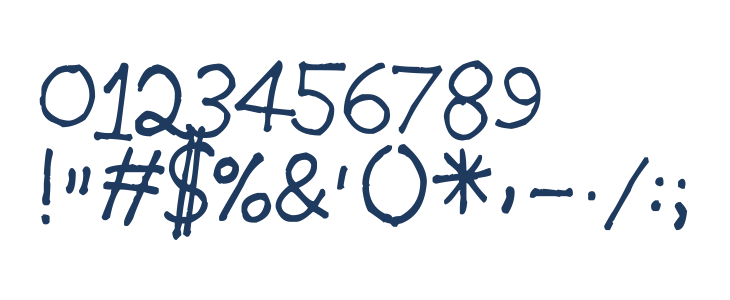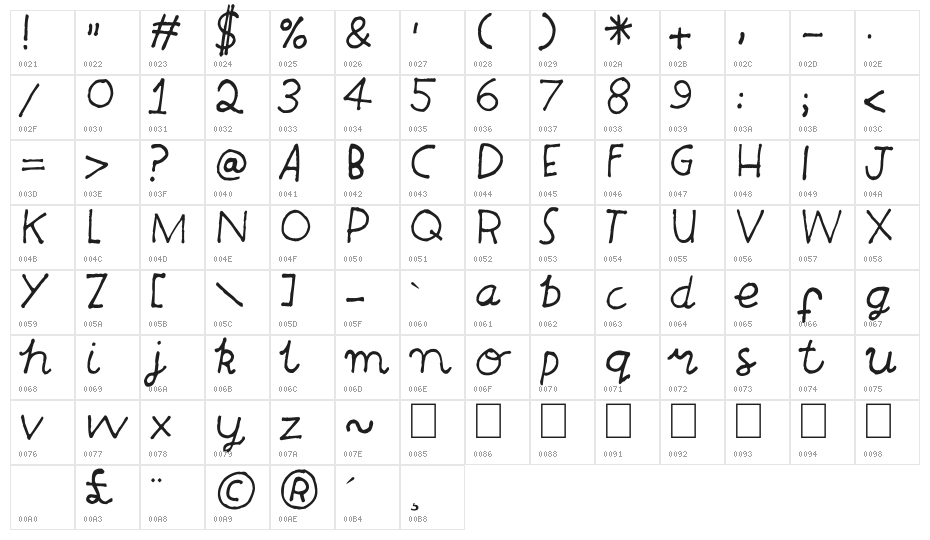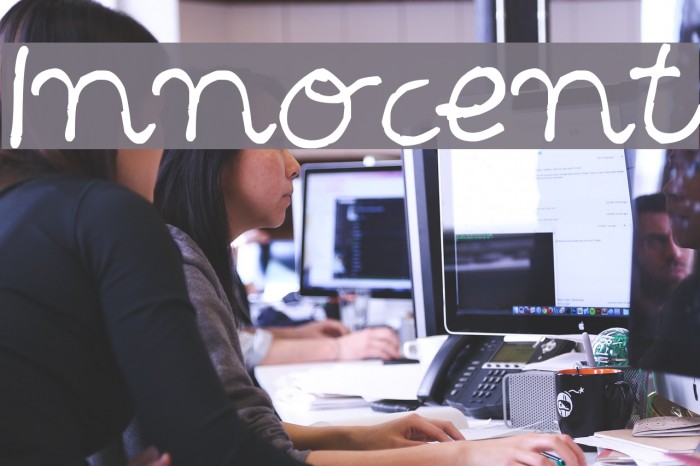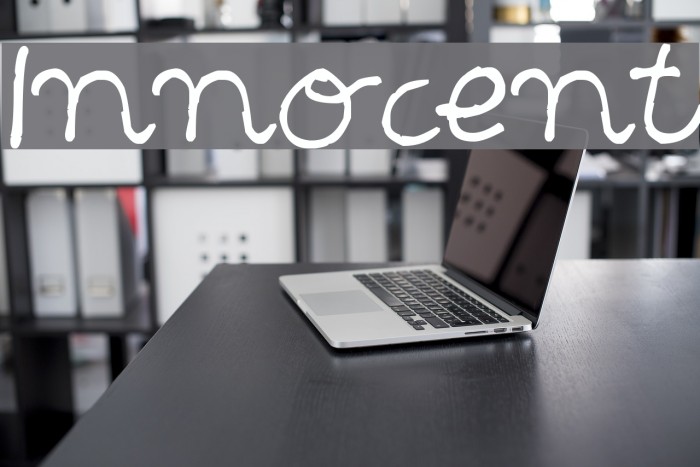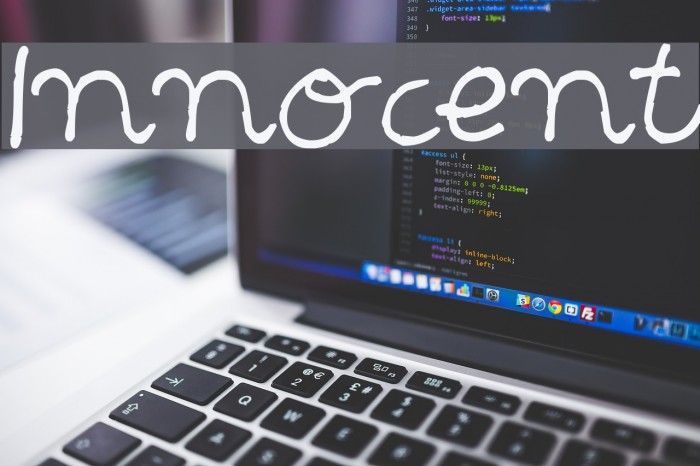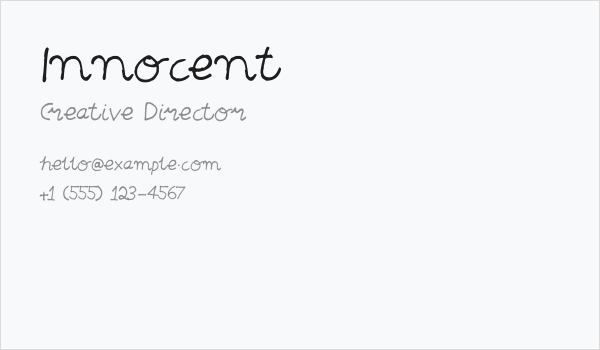
Innocent Font
Innocent Description
This font features a playful and informal handwritten style, characterized by its irregular strokes and slightly uneven baseline. The letters have a casual, friendly appearance, with a mix of rounded and angular forms that give it a unique charm. The uppercase letters are bold and prominent, while the lowercase letters maintain a consistent flow, enhancing readability. Numbers and special characters follow the same whimsical style, making the font versatile for various creative projects. Its organic, hand-drawn quality adds a personal touch to any design.
| Proposed Projects | Ideal for greeting cards, children's books, personal blogs, and creative branding. |